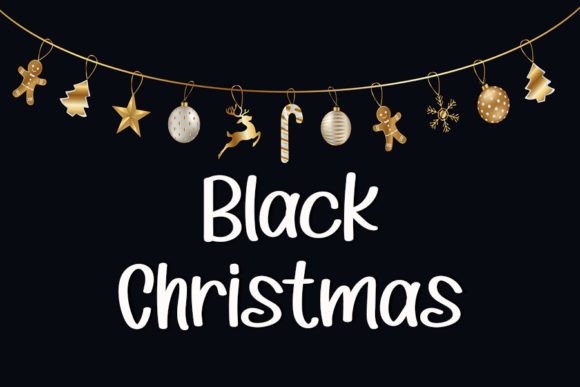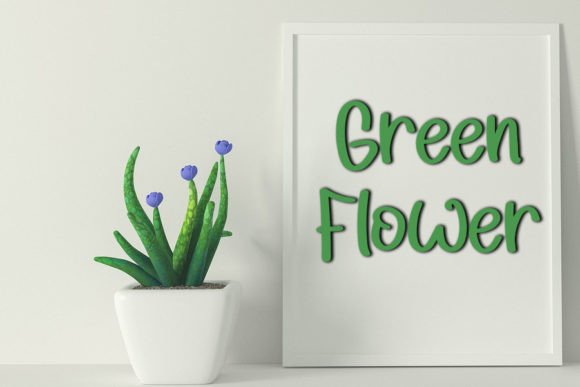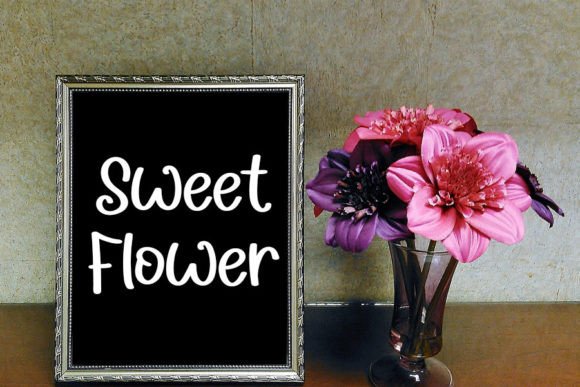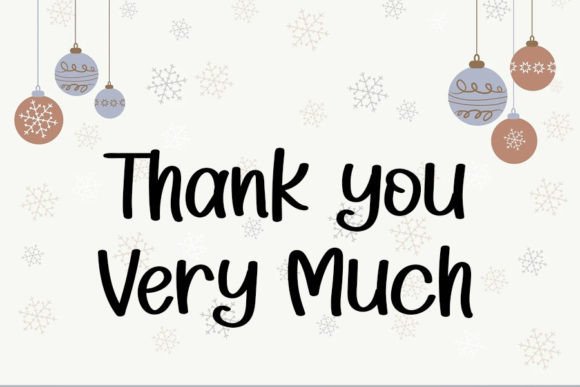
It’s that time of the year when we start brainstorming ideas for holiday cards, wedding invitations, and other special occasion designs. As a designer, you know the struggle of finding the perfect font to convey the warmth and magic of the season. That’s where the Hello Christmas Font comes in – a charming and elegant script that adds a handwritten touch to your designs.
This versatile font is perfect for a variety of projects, from greeting cards and quotes to logos and business cards. Its beautiful, flowing lines and classic feel make it a valuable addition to any designer’s toolkit. Whether you’re working on a holiday project or a wedding design, the Hello Christmas Font is sure to add a touch of sophistication and whimsy to your creations.
Hello Christmas Font Key Features
- Unique Characteristics: The Hello Christmas Font features a festive and playful design, with intricate details and ornaments that evoke a sense of holiday cheer.
- Font Style: The font is available in a single style, with a variety of weights and ligatures to enhance its legibility and readability.
Hello Christmas Font Review
Overall, I think the Hello Christmas Font is a great addition to any holiday-themed project. ✨ The font’s unique and playful design makes it perfect for creating festive invitations, social media posts, and holiday cards.
Here are some of the things I like about the font:
- ✨ Beautiful, cursive script that’s perfect for handwritten-style designs
- ✨ A range of different styles and variations to suit different design needs
- ✨ Great for adding a touch of whimsy and personality to holiday designs
- ⚠️ The font may not be suitable for large blocks of text, as it can become difficult to read
- ⚠️ Some of the variations may not be as consistent in terms of style and formatting
- ⚠️ The font may not be as versatile as other holiday fonts, as it’s specifically designed for a Christmas theme
Overall, I would give the Hello Christmas Font 4 out of 5 stars. It’s a great choice for holiday projects, but may not be the best option for more complex or large-scale designs.
The “Hello Christmas Font” is perfect for creating holiday-themed designs, such as:
Invitations and greeting cards
Decorative graphics and social media posts
Gift tags and labels
Advertising and marketing materials